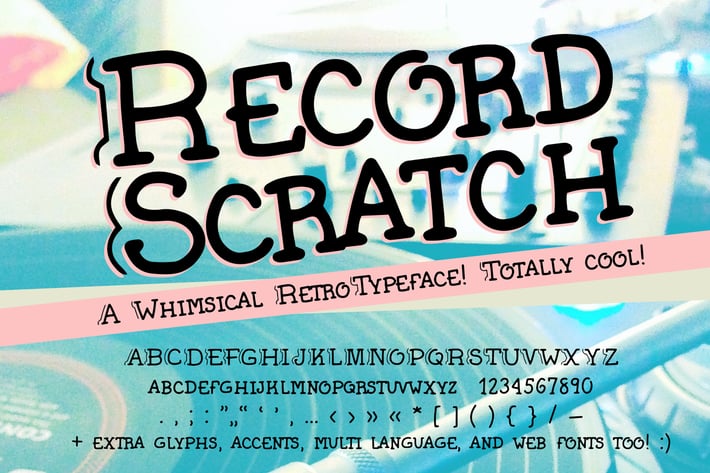
Record Scratch Retro (90s Handwriting Fonts)
Introducing Record Scratch, a retro font inspired by indie music and old records. If you love 80s fonts or 90s fonts, different fonts with decorative elements, and quirky handwriting fonts, you'll enjoy this one. I love a vintage font look, and I was inspired by one of my favorite used record stores, from when I was much younger. :) It kind of reminds me of an old sitcom too! Try this casual font with layered colors, it makes a fun display font!
This font was hand drawn by me, and it includes extended Latin characters, accents, and a bunch more glyphs than featured. Multiple languages are support, and web fonts are included.